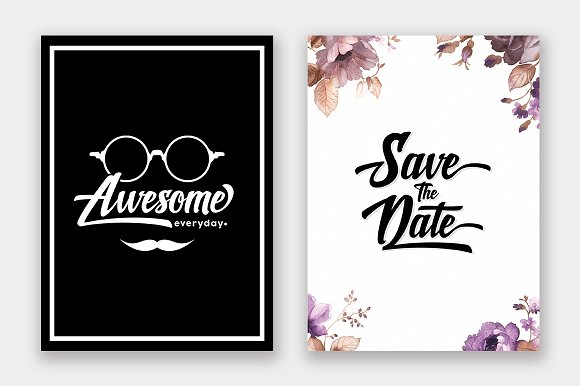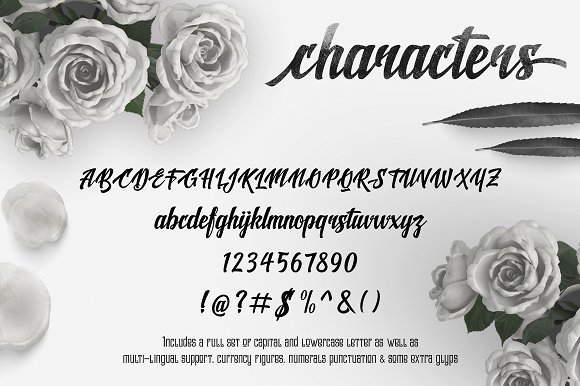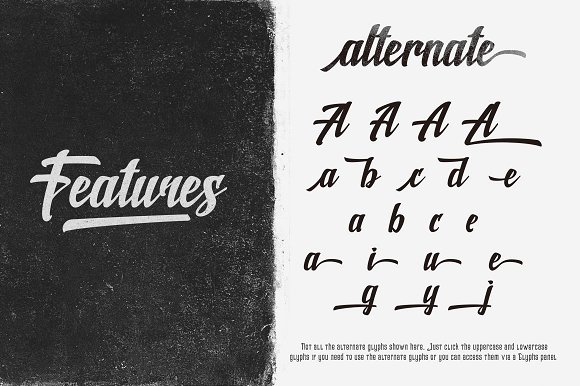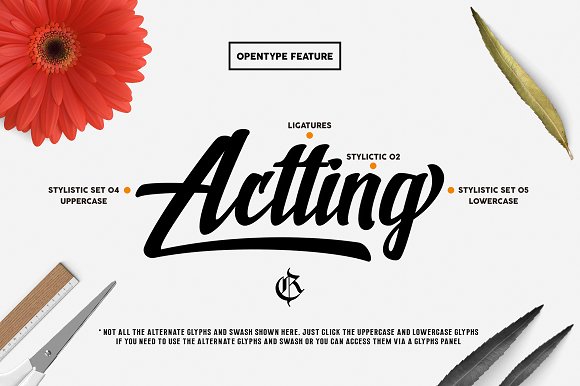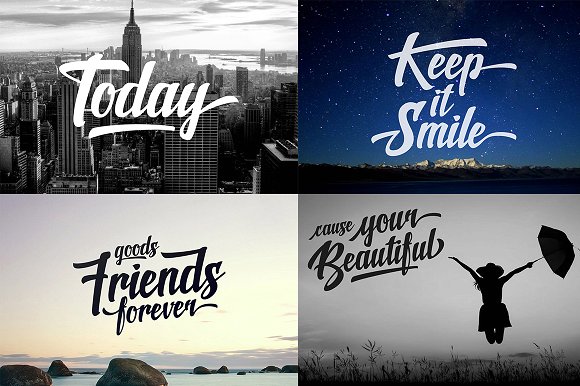
Shine Font
About Shine Font
Shine is a elegant bold marker font.
The Shine font is a type that has character. Great for when you want to get your design noticed. The swashes come in a separate font, which is included and gives you easy access to all the extra font features.